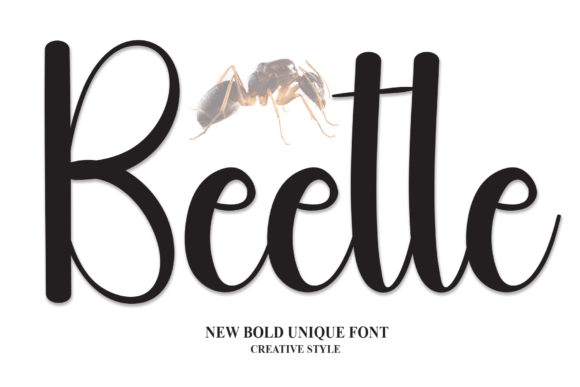
Immerse yourself in the whimsical world of Beetle Font, a captivating script font family that will transform your creative endeavors into heartfelt expressions. Designed by the talented William Jhuordy, Beetle Font is a symphony of artistry, embodying the charm and elegance of handwritten notes. Its graceful strokes, reminiscent of a calligrapher's quill, dance across the page, inviting you to pen your most heartfelt messages.
With its innate versatility, Beetle Font adapts effortlessly to a myriad of design projects, from wedding invitations that exude timeless romance to greeting cards that overflow with warmth and cheer. Its playful personality lends itself beautifully to posters and flyers, adding a touch of whimsy that captures attention and sparks imagination. Unleash your creativity with Beetle Font, the perfect companion for projects that demand a personal touch.
Step into a world of visual delight as Beetle Font adorns your wedding welcome sign, enveloping your guests in an atmosphere of love and celebration. Its elegant curves and delicate flourishes create an unforgettable first impression, setting the tone for a day filled with joy and cherished memories. Let Beetle Font be the herald of your special day, guiding your guests into a realm of enchantment.
Dive into the world of Beetle Font and discover a treasure trove of creative possibilities. Its versatility extends beyond wedding invitations and welcome signs, seamlessly adapting to a wide range of projects. Craft heartfelt cards that convey your deepest emotions, or let your imagination soar as you design posters and flyers that captivate and inspire. The possibilities are endless with Beetle Font, your trusty companion in the realm of creativity.
Indulge in the beauty of Beetle Font and experience the joy of crafting designs that resonate with emotion and charm. Its user-friendly nature makes it accessible to designers of all skill levels, empowering you to transform your creative visions into tangible realities. Embrace the magic of Beetle Font and embark on a journey of self-expression, leaving a lasting impression on all who encounter your creations.